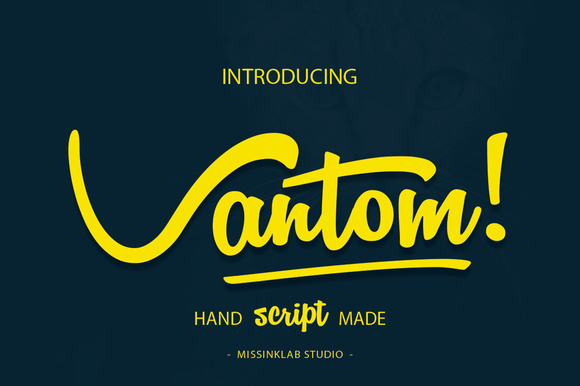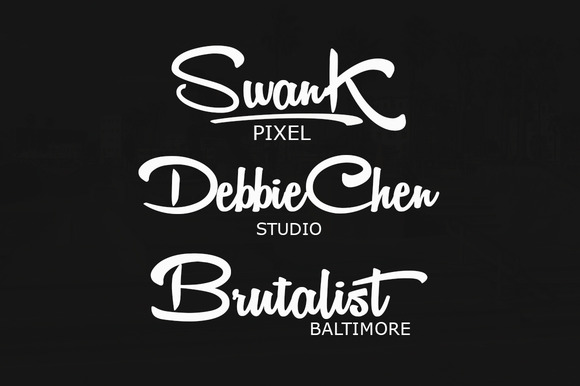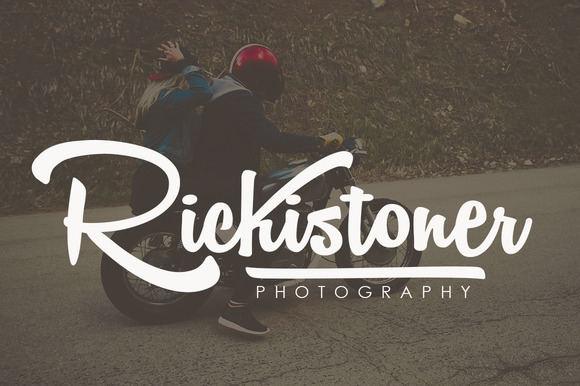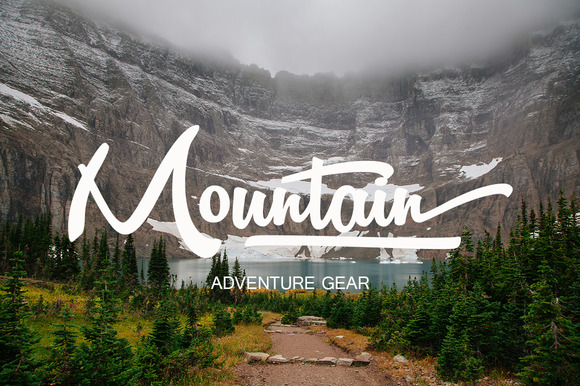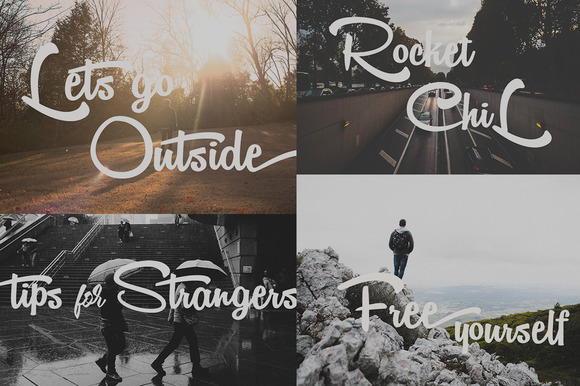
Vantom Script Font
Vantom comes with uppercase, lowercase, numerals, punctuations and so many variations on each characters and also additional swash to let you customise your designs. Perfect to use for Logotype, Letterhead, Poster, Apparel Design, Label and etc.
| Classification: | Brush Fonts, Calligraphy Fonts, Handwritten Fonts, Script Fonts |